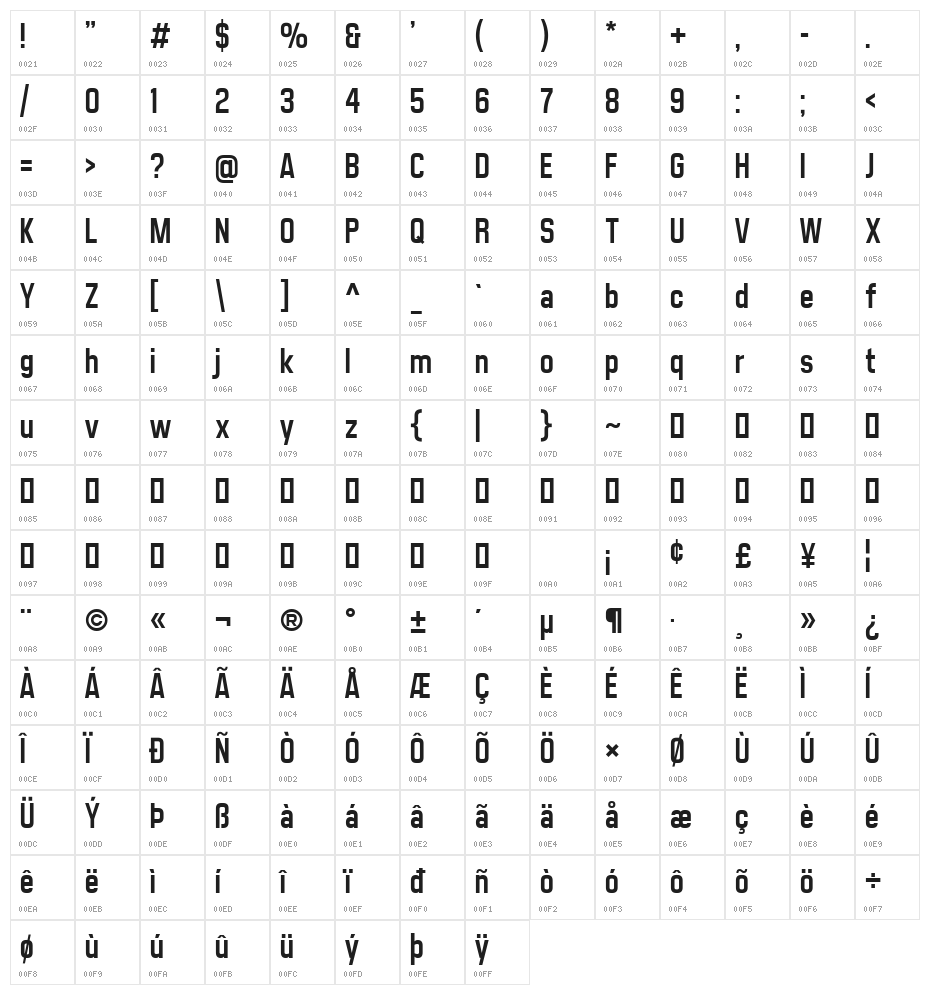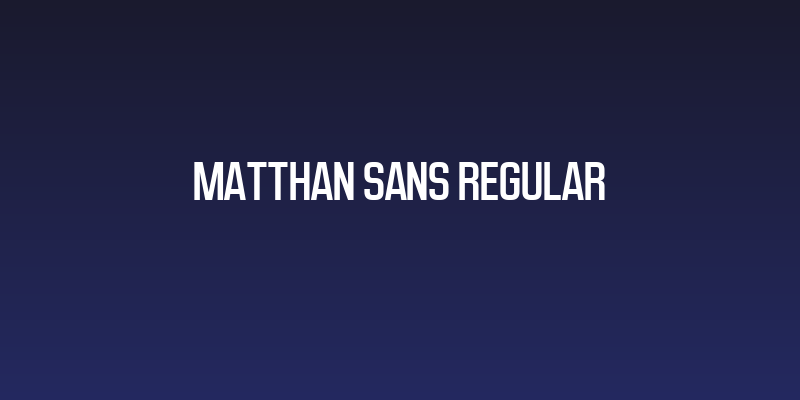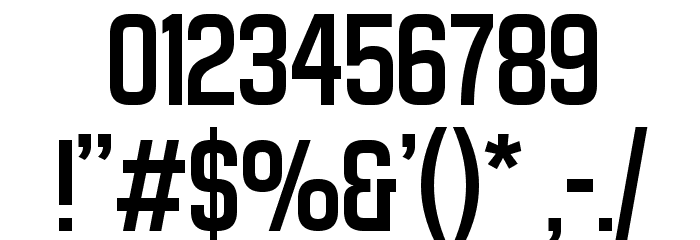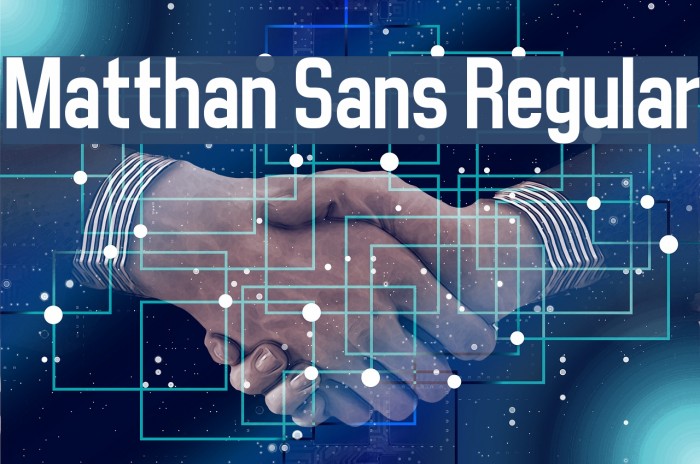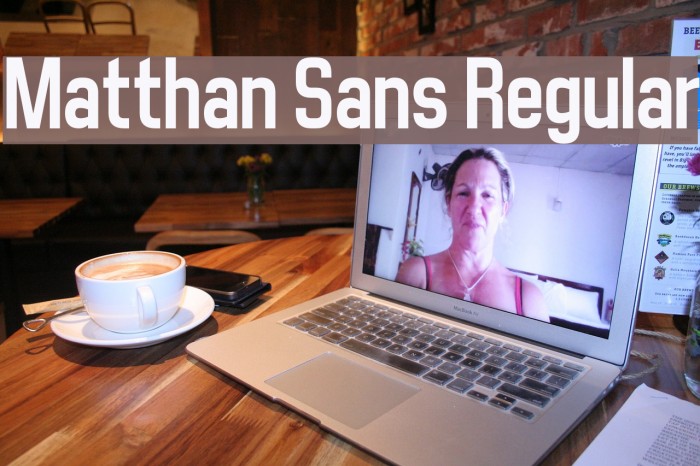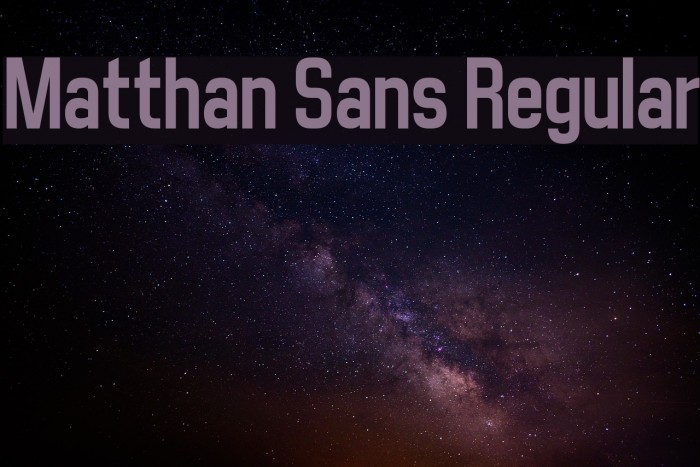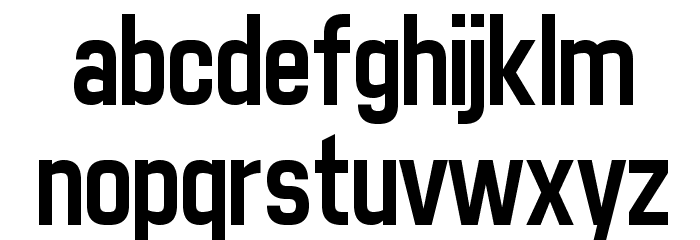
Matthan Sans Regular Font
Matthan Sans Regular Description
This font exhibits a clean and modern sans-serif style with a strong geometric structure. The characters are uniform in width, providing a balanced and cohesive appearance. The uppercase letters are bold and impactful, making them suitable for headlines and attention-grabbing text. The lowercase letters maintain a consistent height and width, ensuring readability and clarity. The numerals are clear and distinct, matching the overall aesthetic of the font. Special characters are well-defined, adding versatility for various design needs. The font's design is straightforward yet effective, making it a versatile choice for a wide range of applications.
| Use Case | Headlines, Logos, Web design |
| Proposed Projects | Ideal for branding, advertising, web design, and editorial projects where a modern and clean look is desired. |